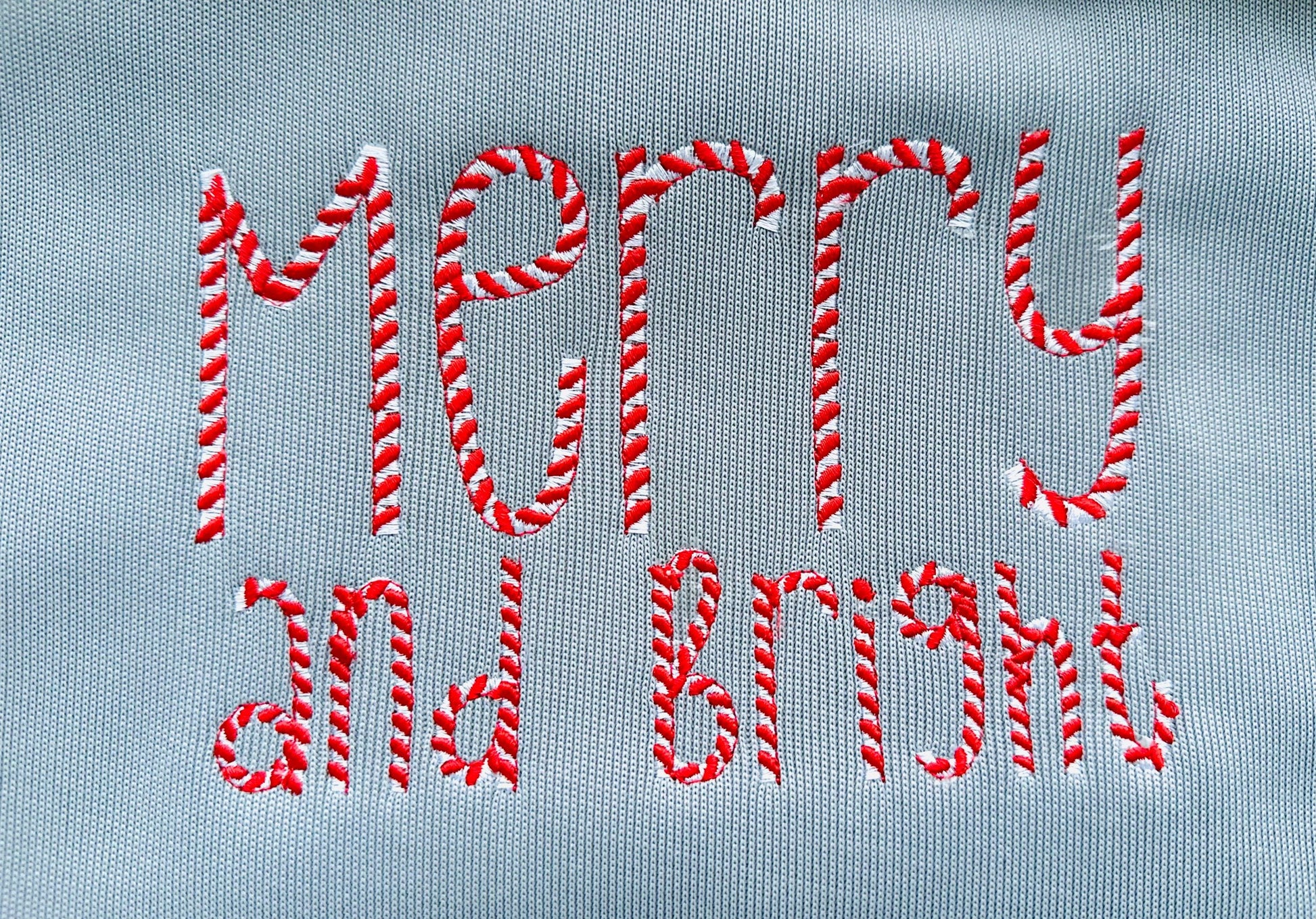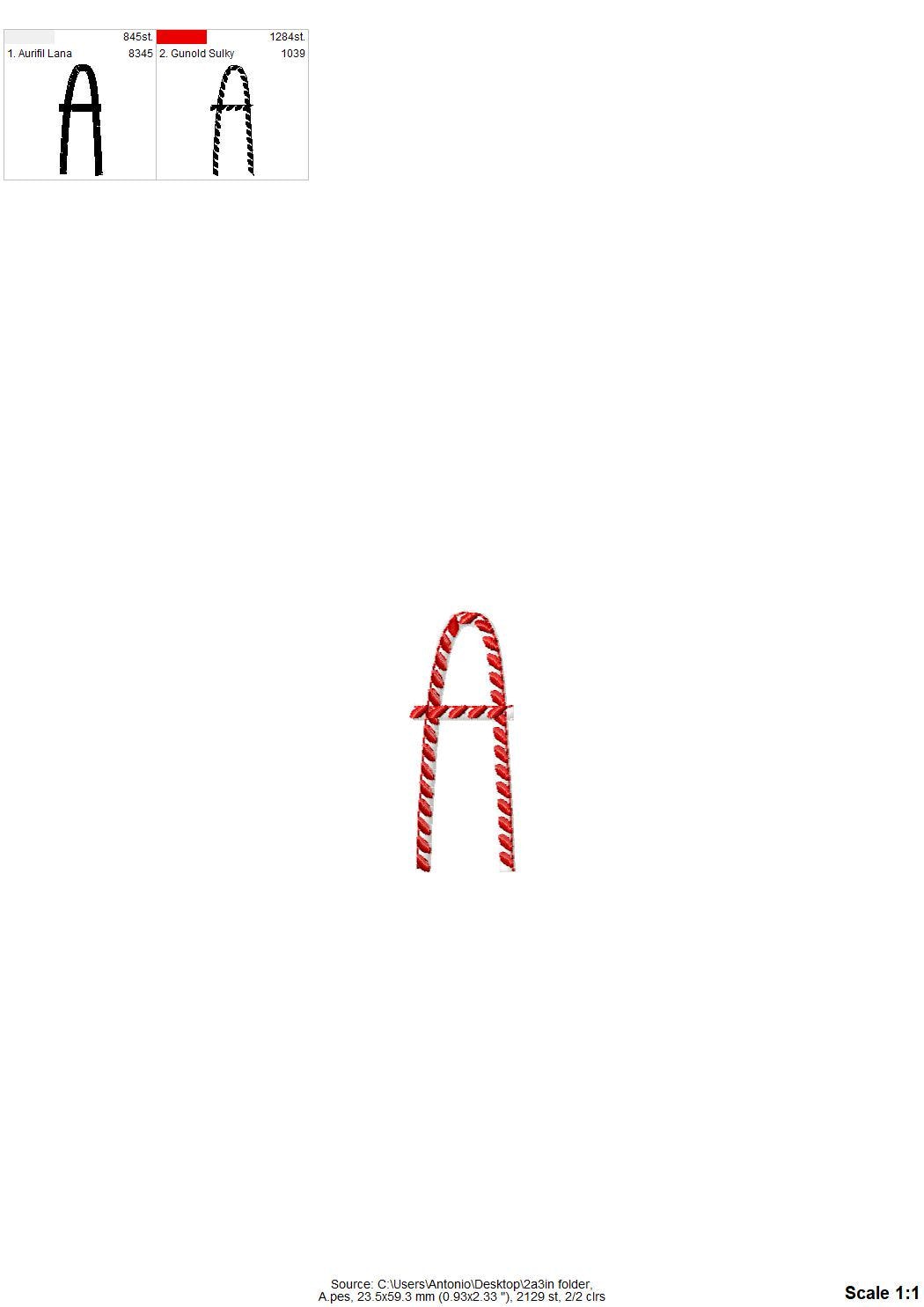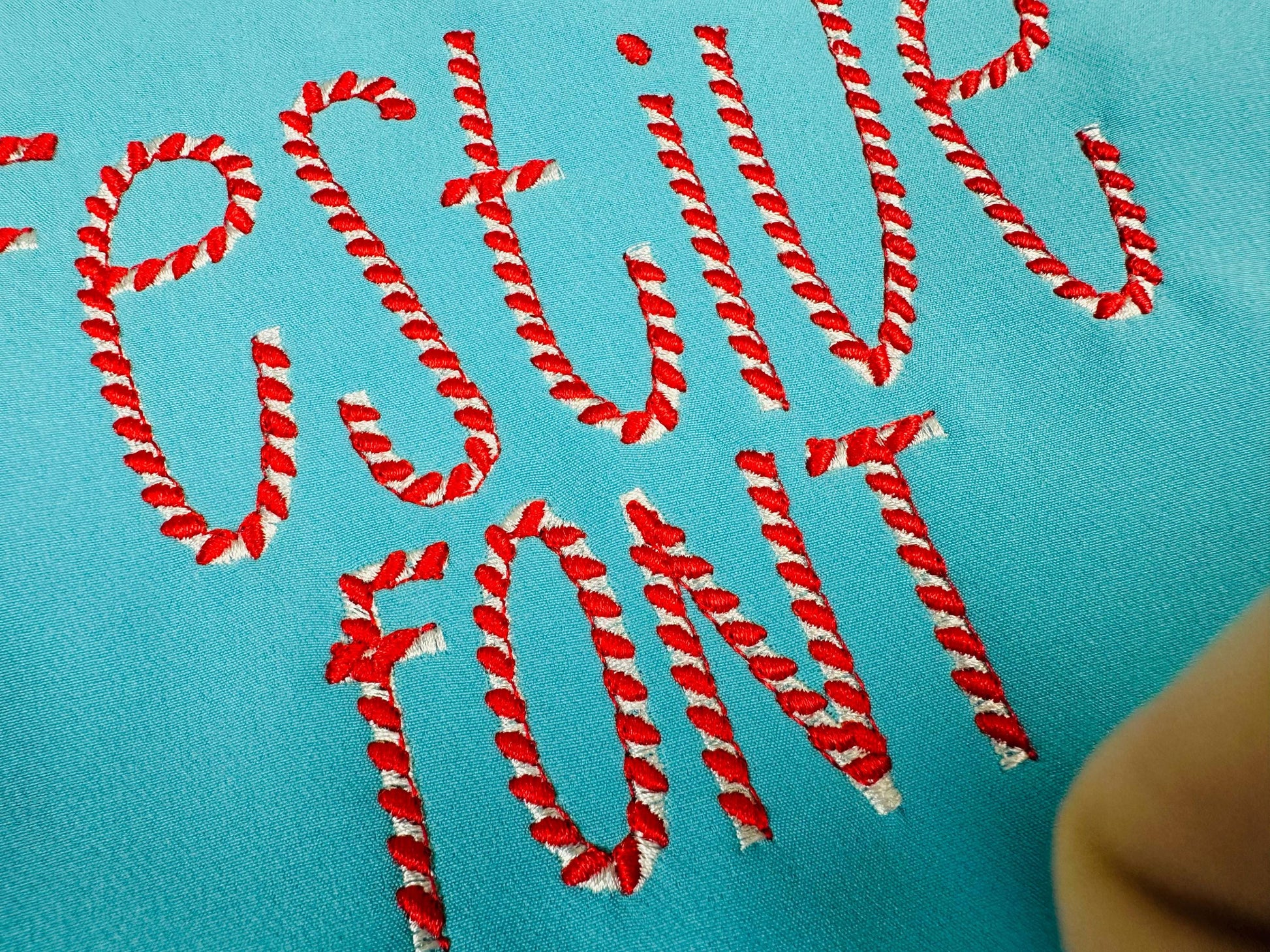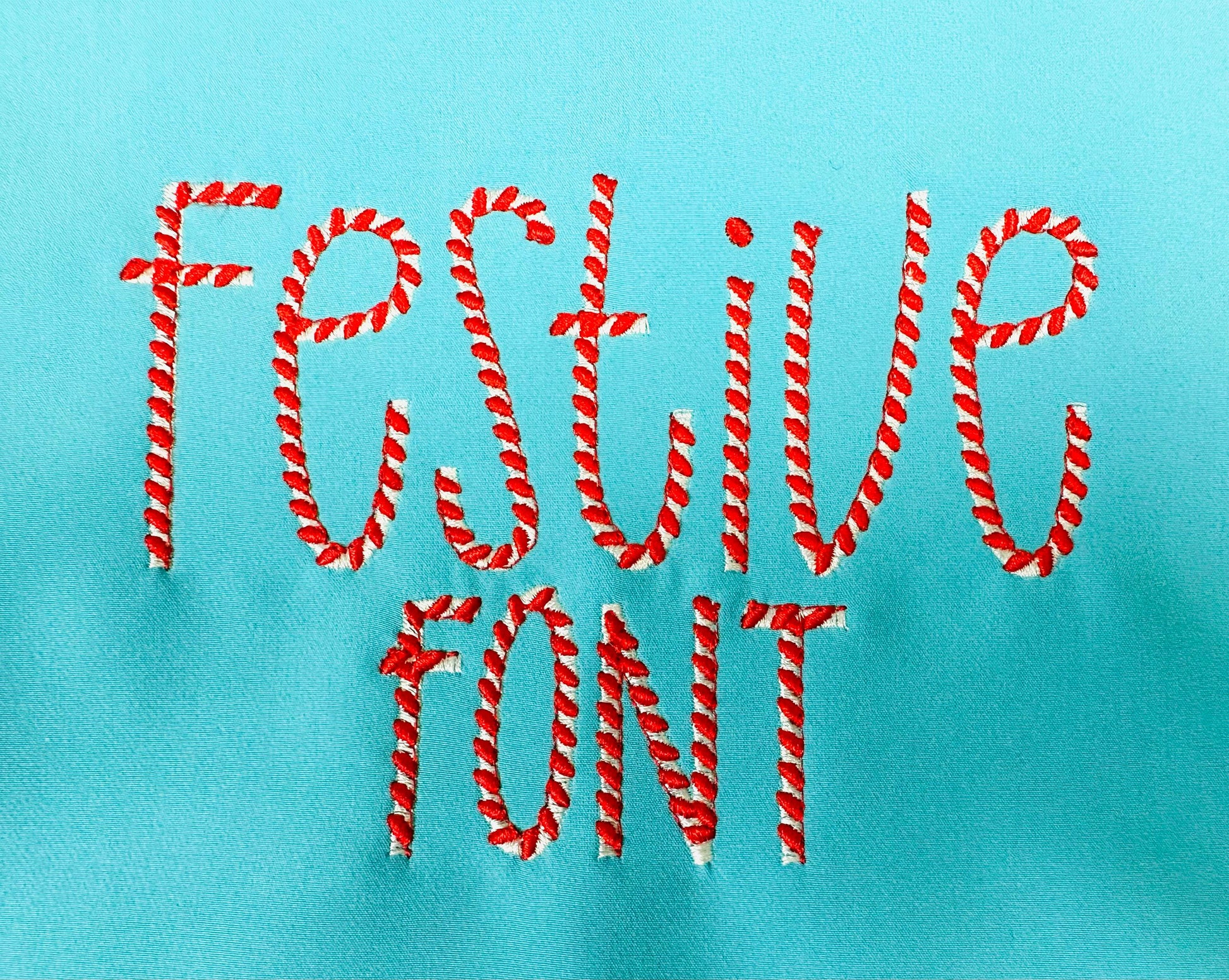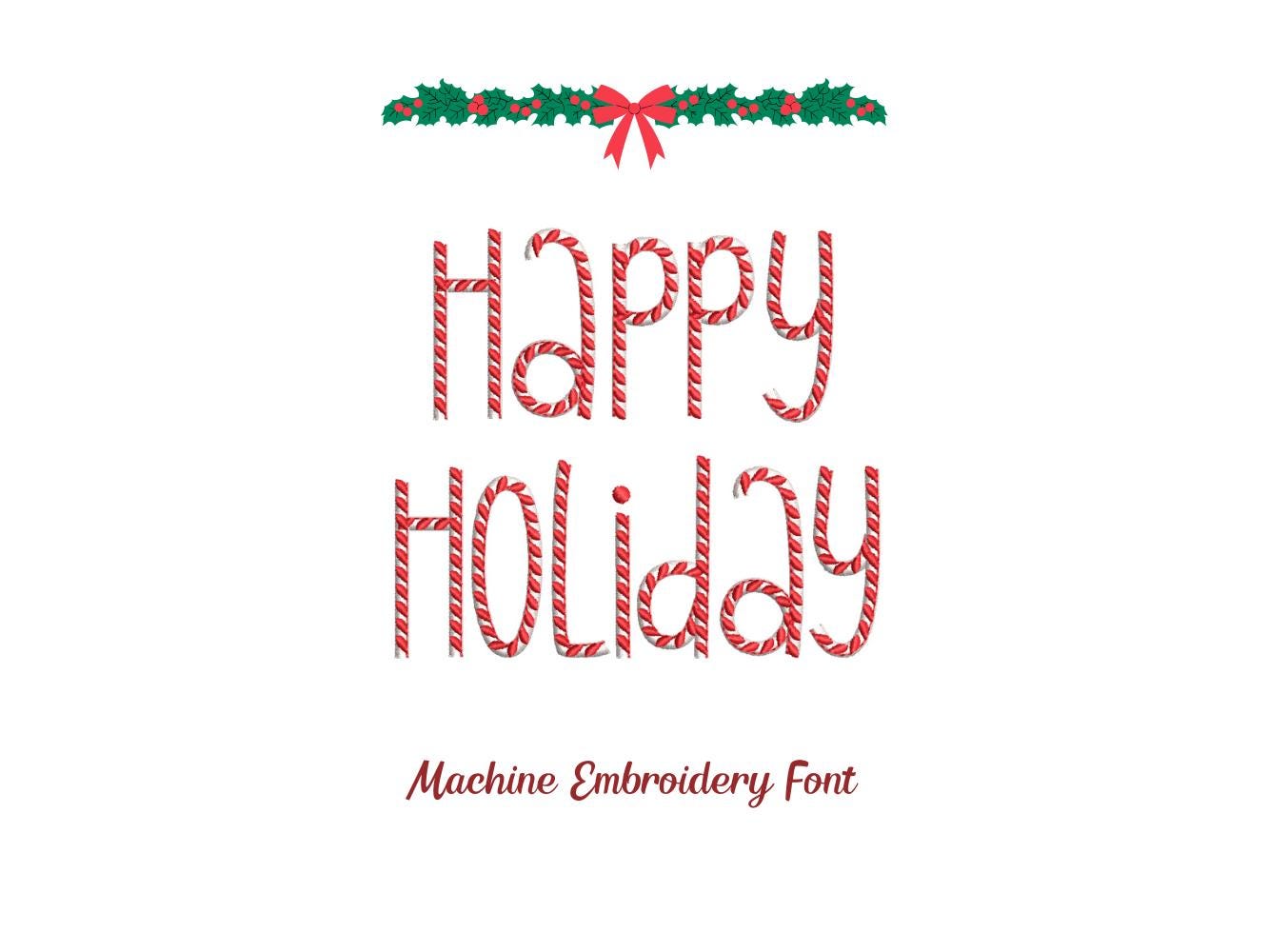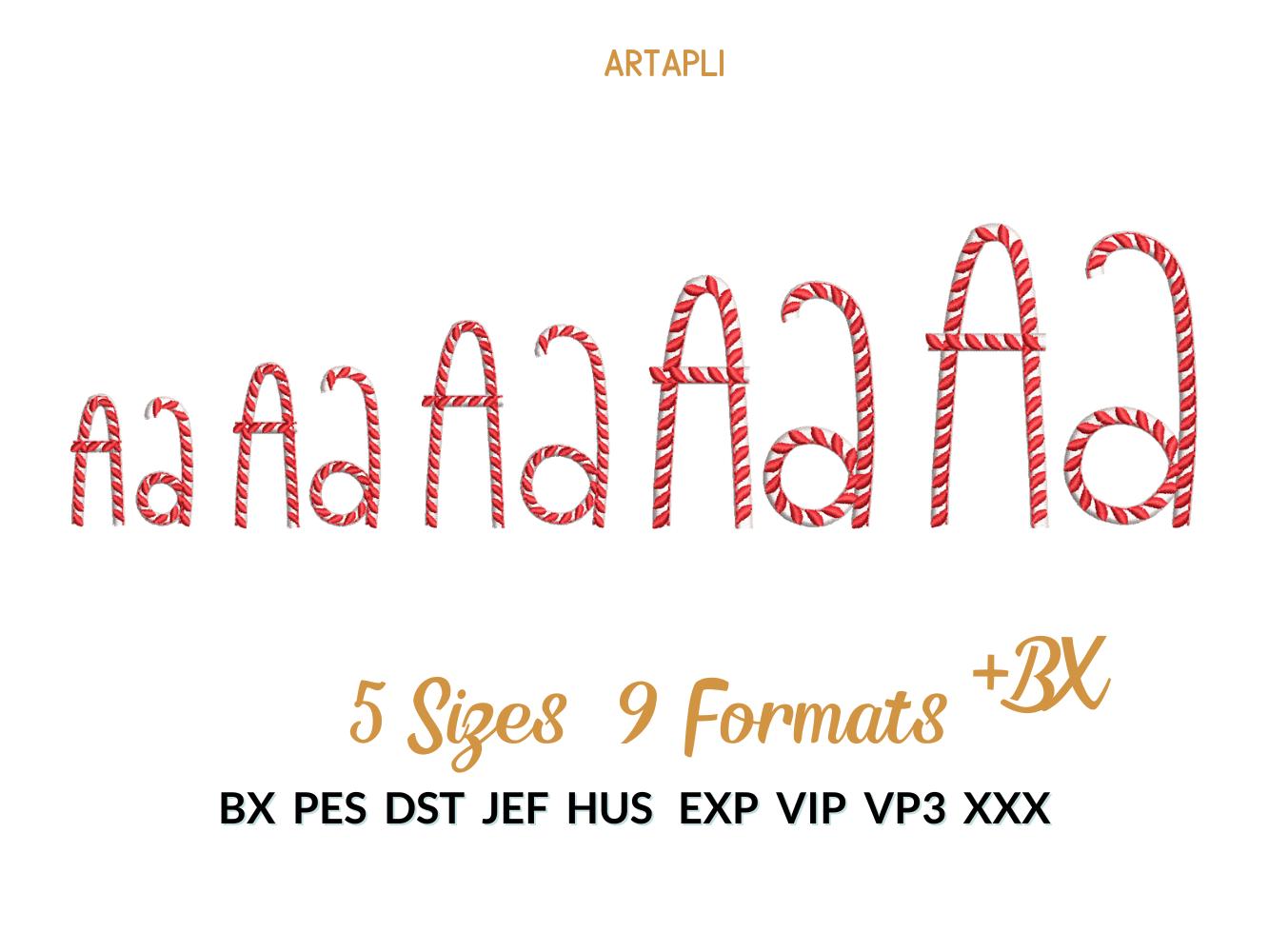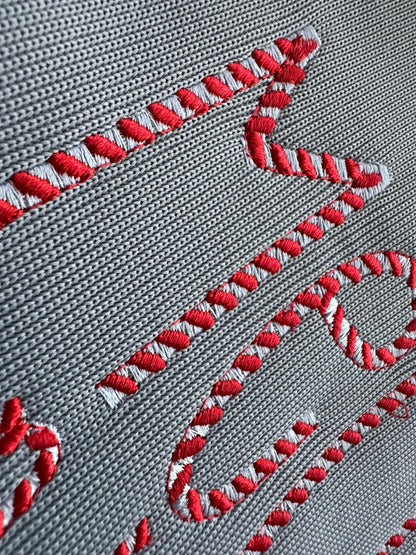
Christmas Santa Candy Cane Font
Or click to open the linkA two-color candy cane font. Festive for Christmas stockings, holiday shirts, pillows and gift bags.
Uppercase and lowercase letters in the same height, numbers 0 to 9, an ampersand, comma, dash and period. Five sizes: 1.4, 2, 2.3, 2.9 and 3.4 inches.
- 2-color candy cane font
- Uppercase, lowercase, numbers 0 to 9, punctuation
- 5 sizes, 1.4 to 3.4 in